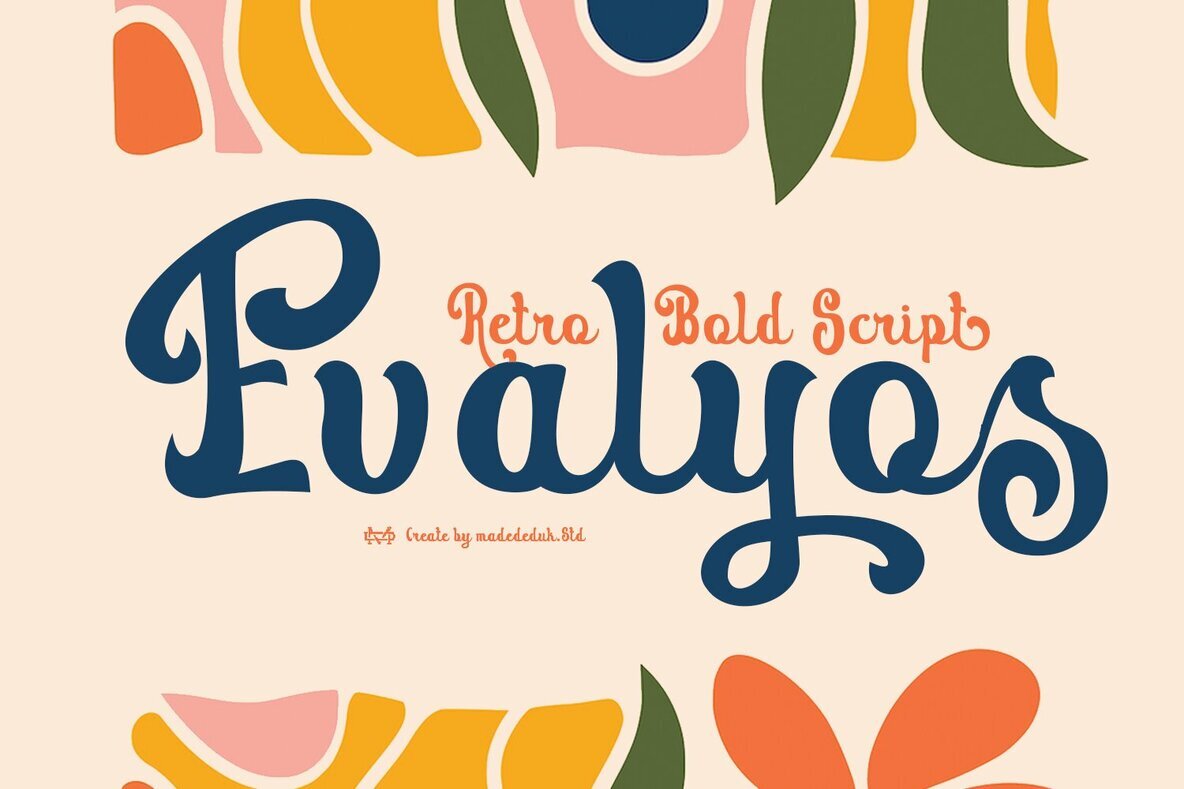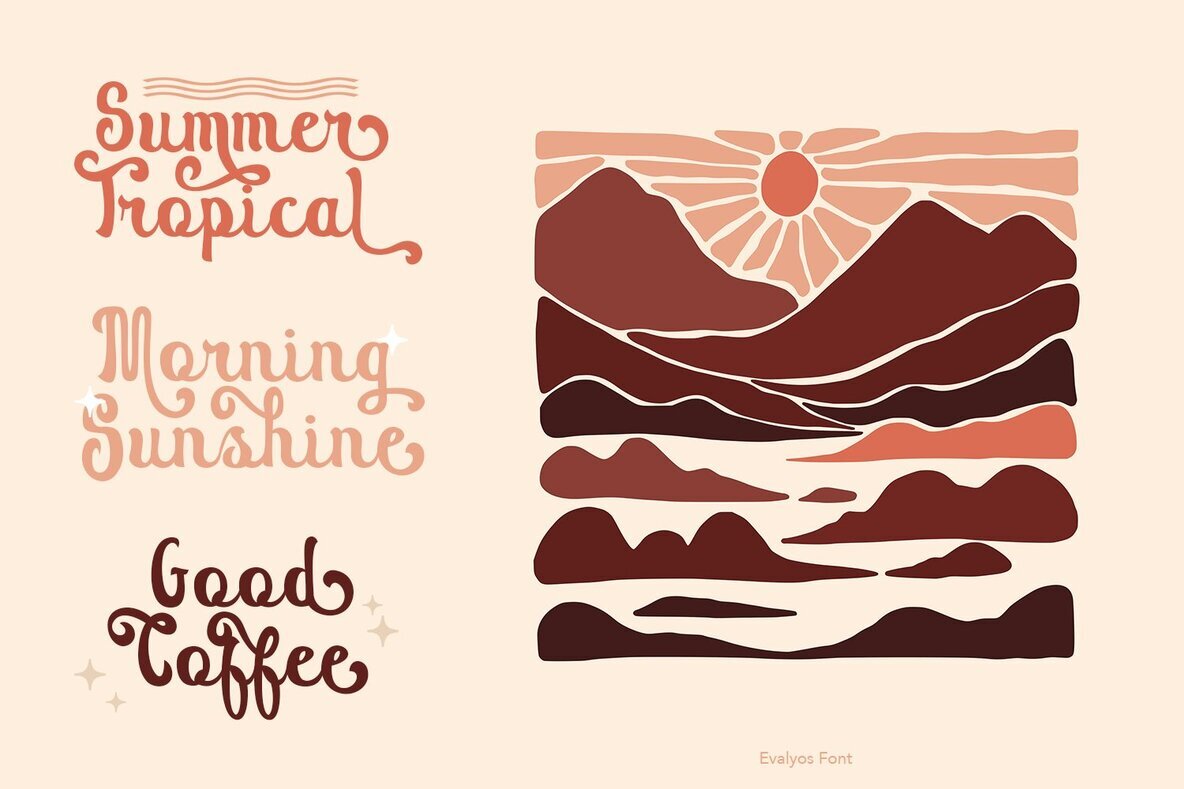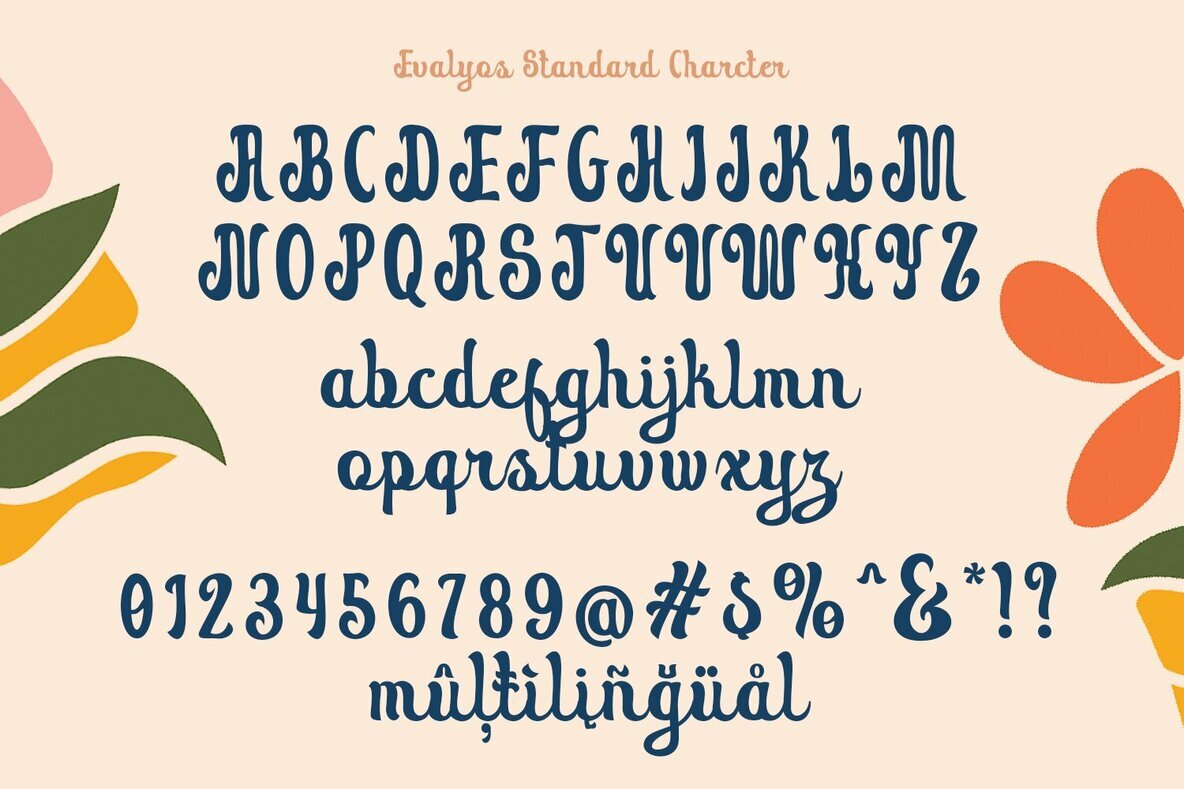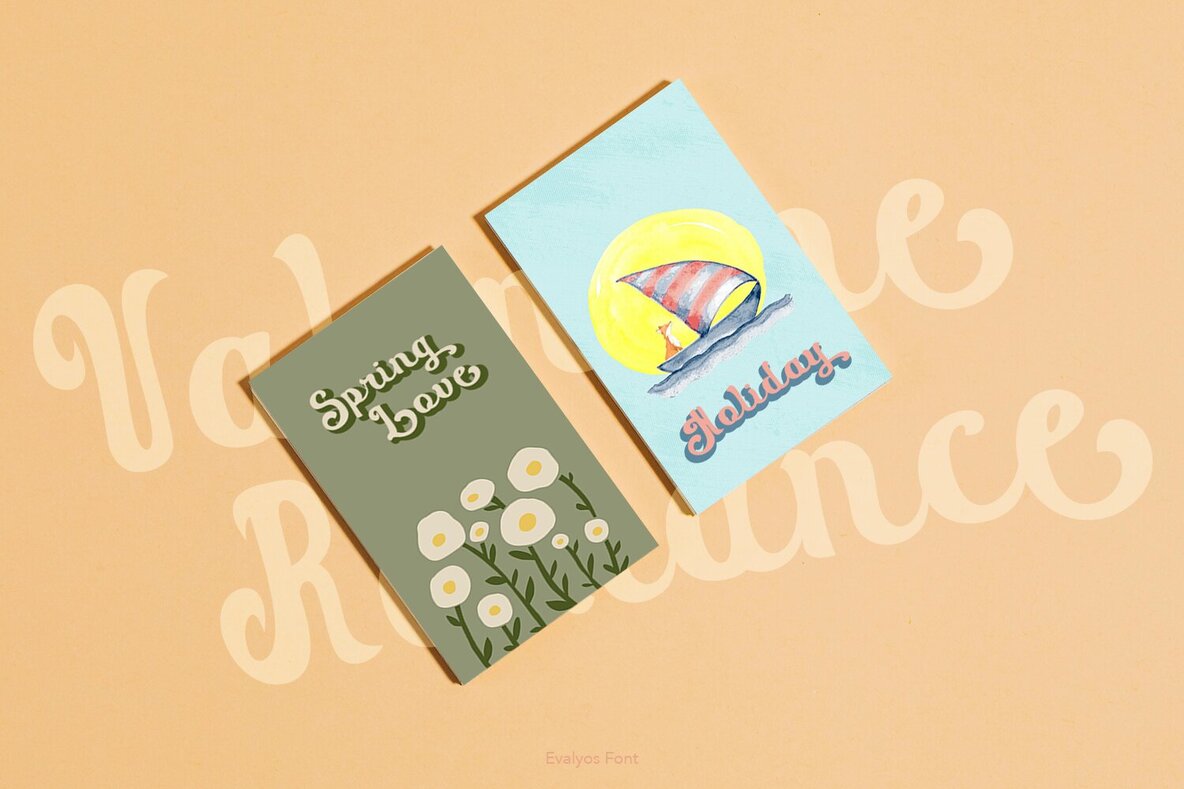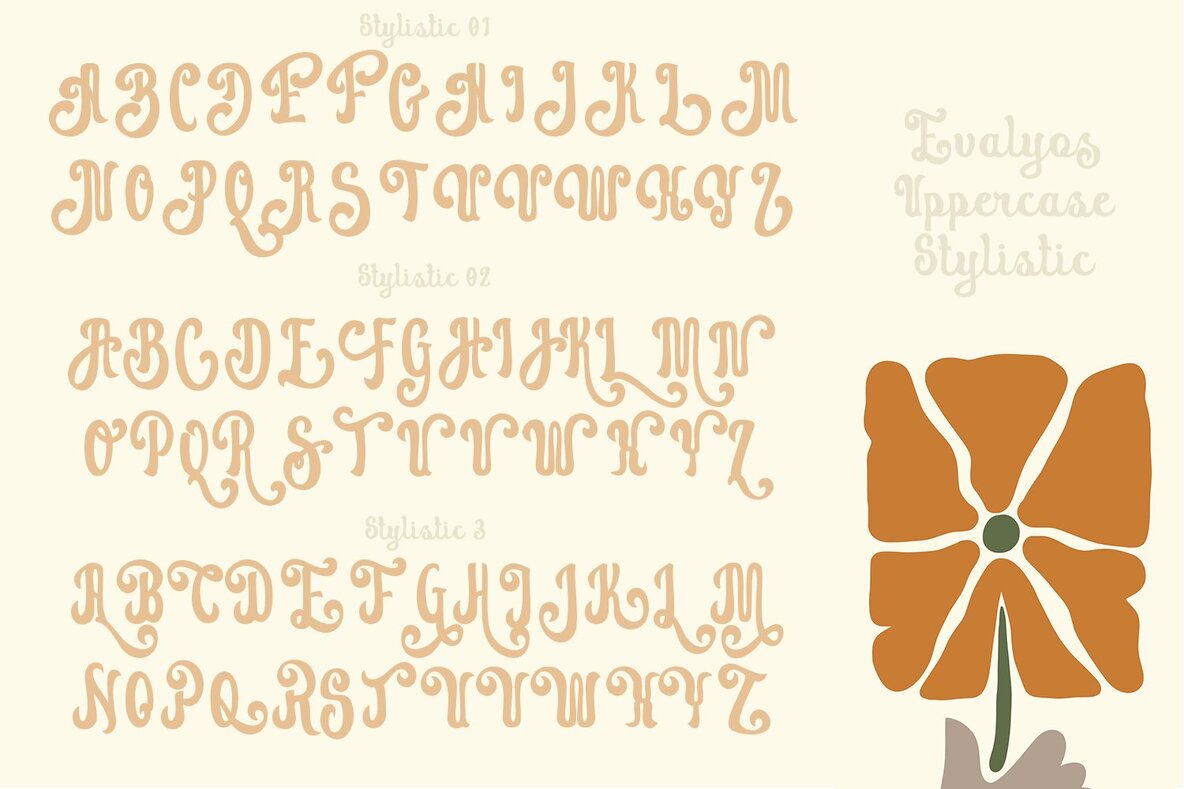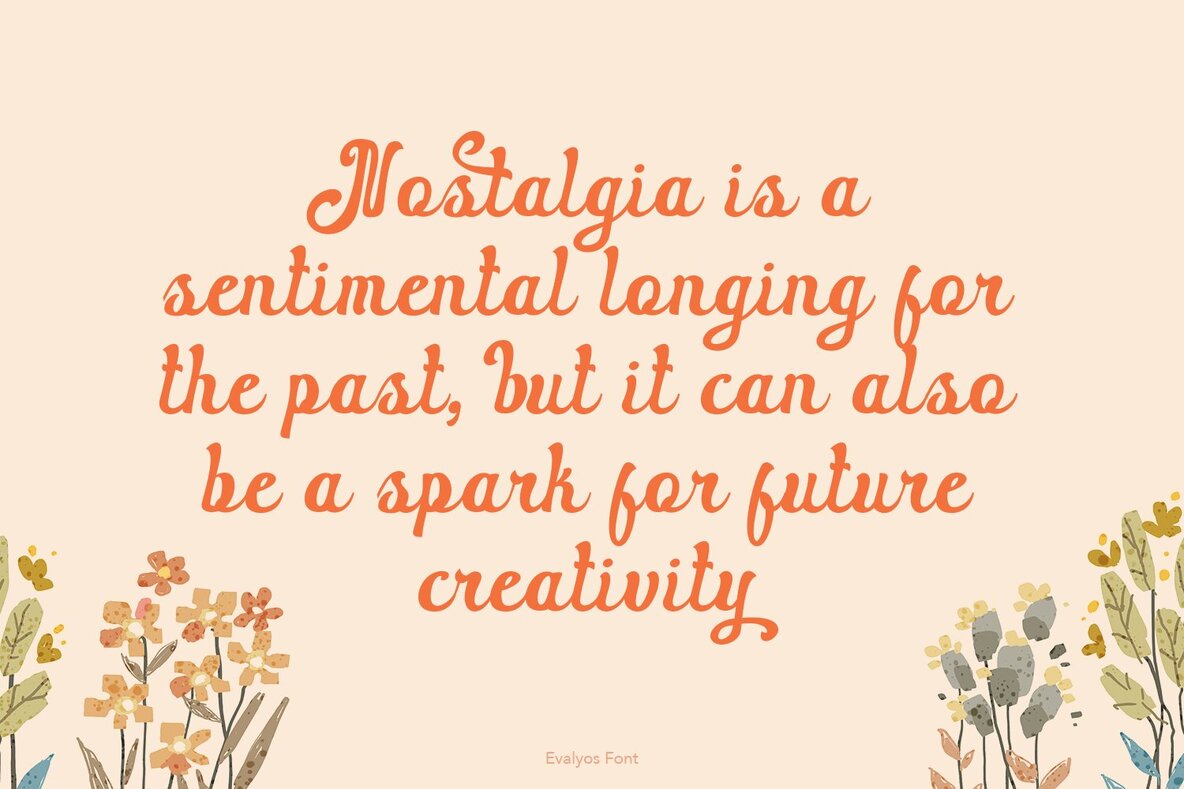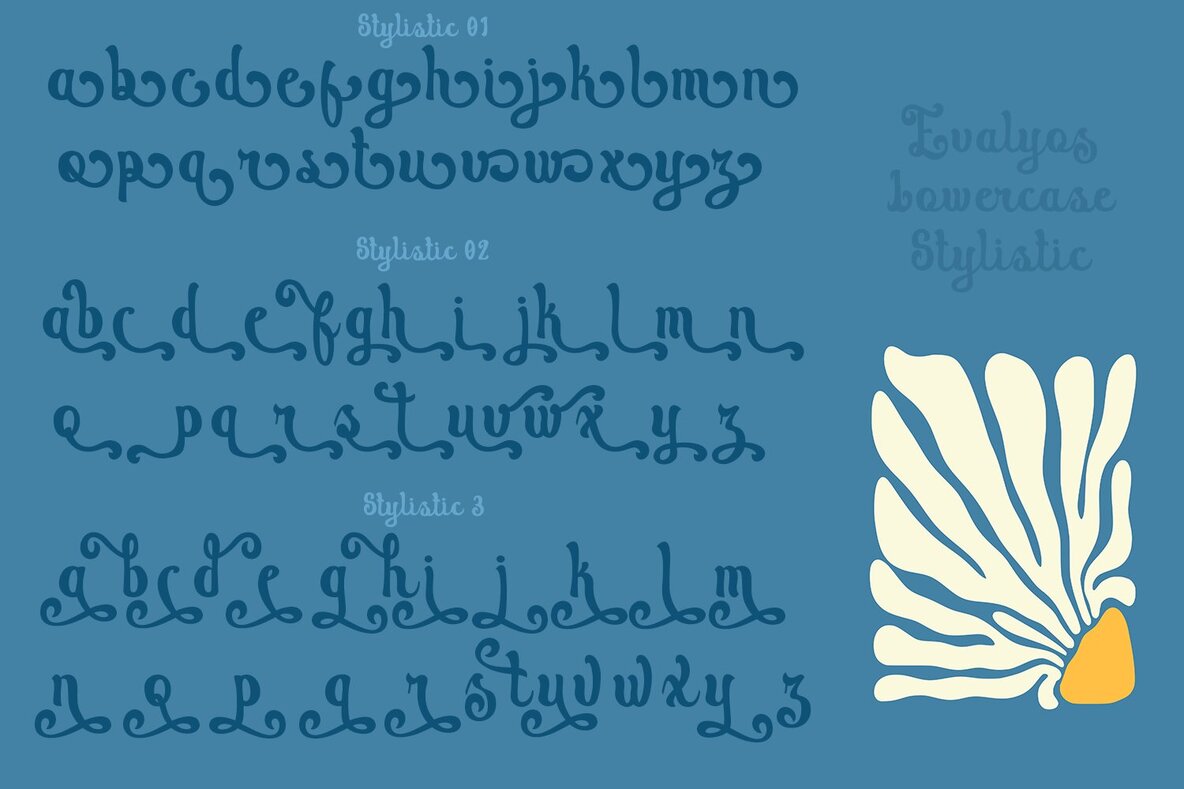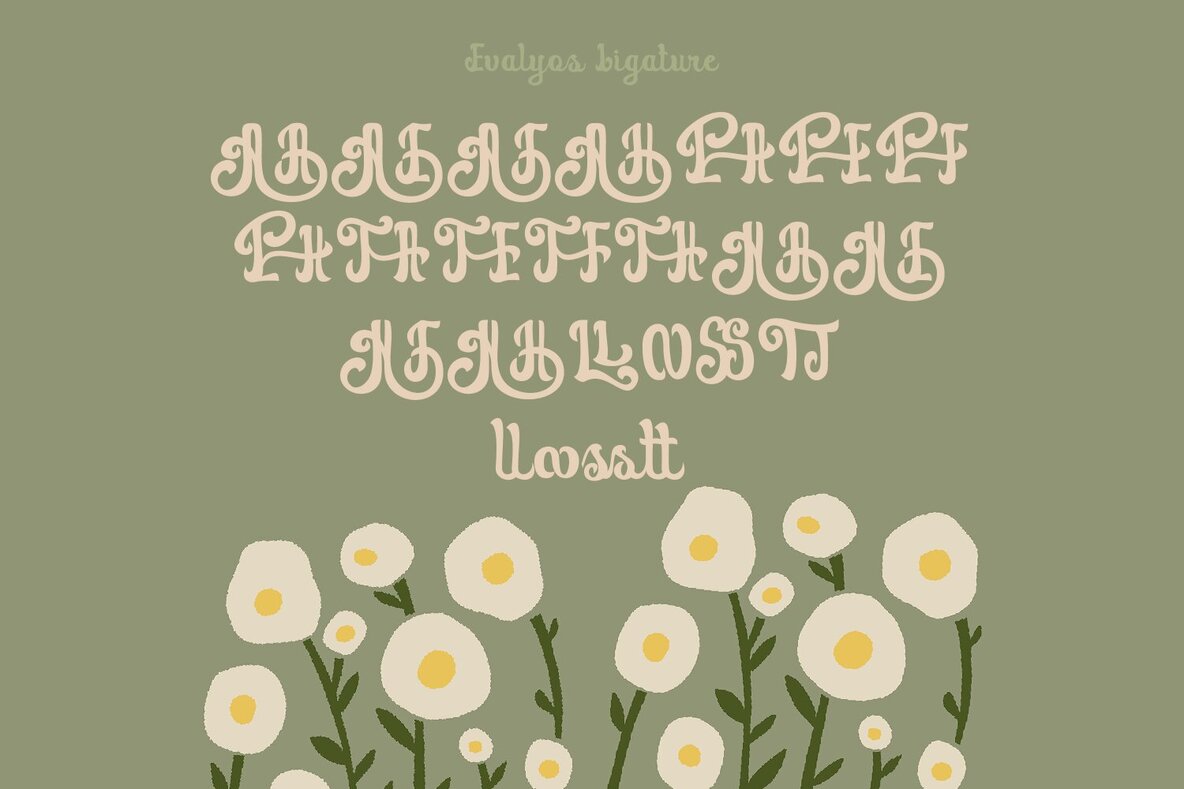
Evalyos Retro Font
Evalyos Retro Script brings a formal yet refined edge to your typography. Its bold, classic strokes give text a striking presence while maintaining a timeless sense of elegance. Designed to stand out, this retro-inspired script balances bold character with sophisticated charm, making it a strong choice for any application that requires impact paired with style. This versatile font is ideal for a range of uses—logos, contemporary posters, album covers, wedding invitations, fashion branding, and lifestyle-driven materials. Evalyos Retro adapts well to both digital and print needs, ensuring your projects convey a polished, classic look every time.Evalyos Retro Script Font